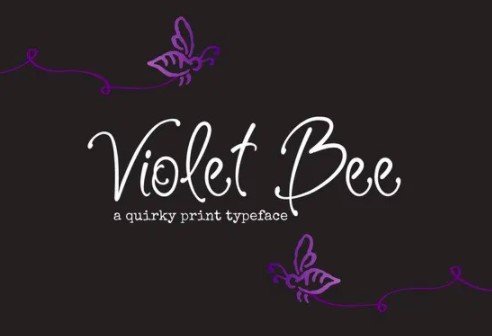
Hi, if you're looking to craft some crisp designs with scripted and handwritten styles, consider using the Violet Bee Font. It features incredible hand-drawn and beautifully designed characters, perfect for a wide array of project types.
The font is suitable to use with the combination of flaming script for making stylish, unique, and elegant handwritten designs which will provide your customer eye-catchy and attractive-looking graphic and website designs work. The font is provided in regular, bold, and italic styles which means you can use any of the styles for creating best and perfect graphic work.